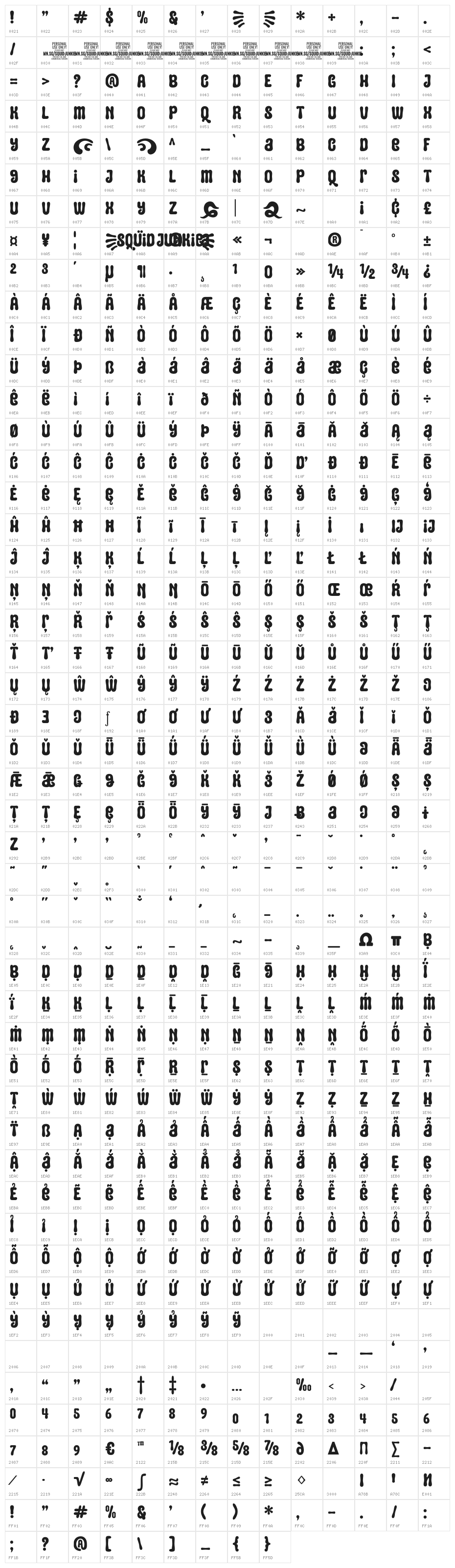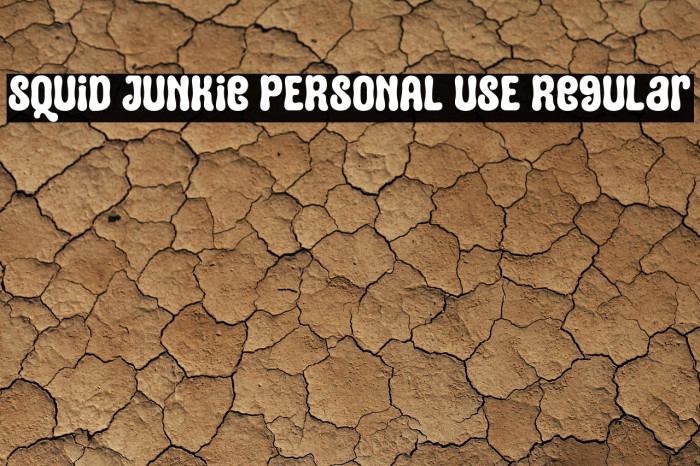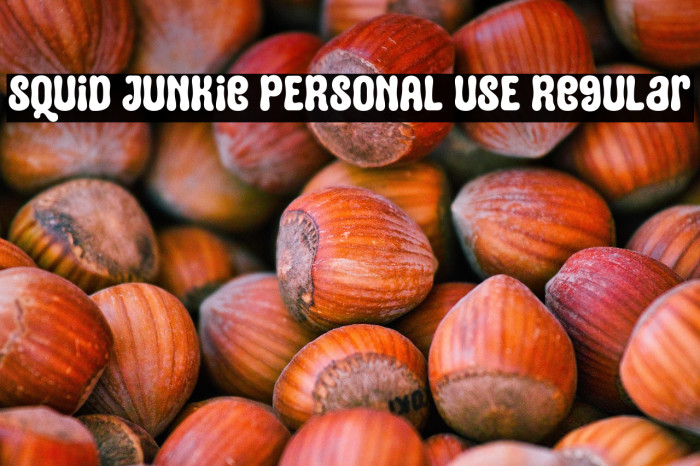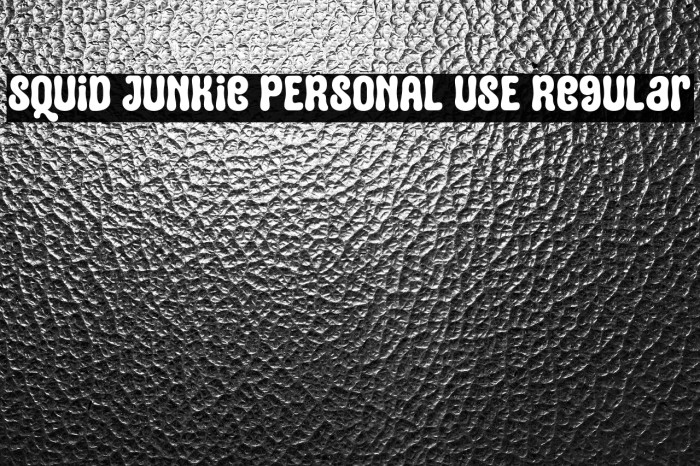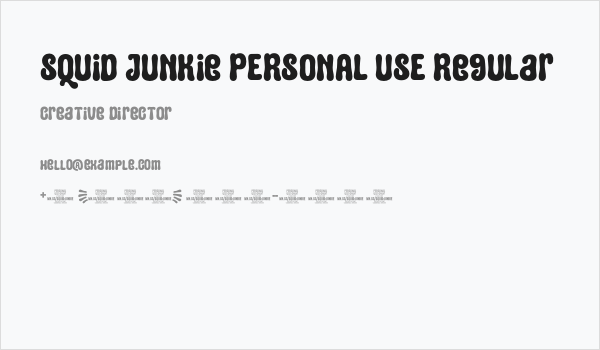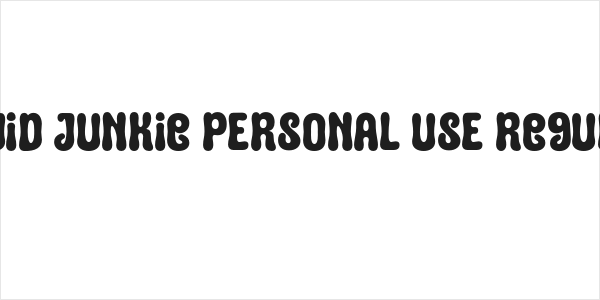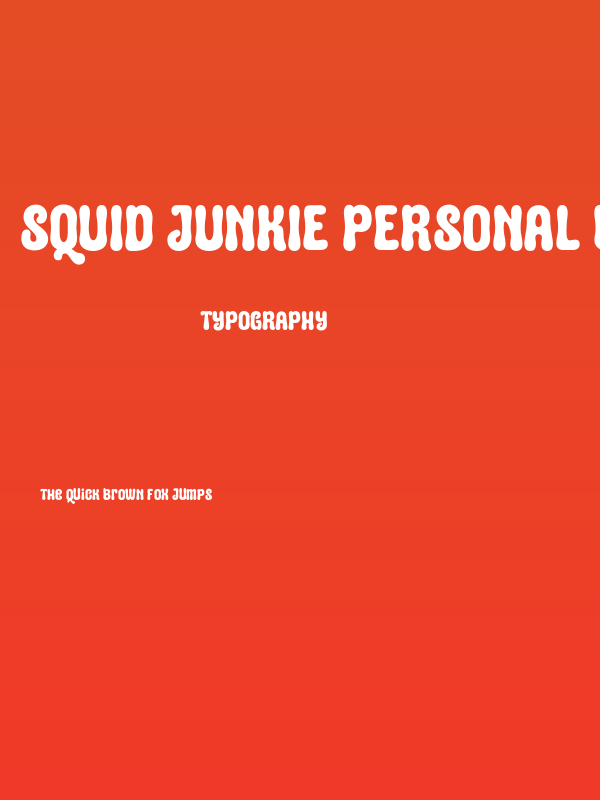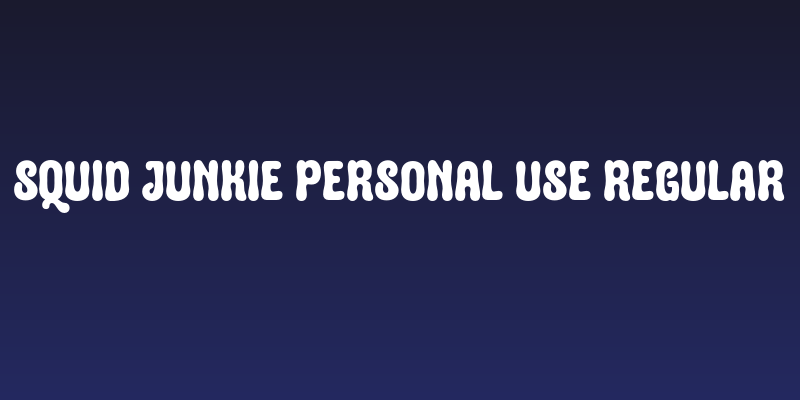
Squid Junkie PERSONAL USE Regular Font
Squid Junkie PERSONAL USE Regular Description
This font features a bold and playful design with thick, rounded strokes that give it a bubbly and whimsical appearance. The characters are uniform in width, creating a cohesive look across both uppercase and lowercase letters. The font has a slightly retro feel, reminiscent of 1970s design aesthetics, making it ideal for projects that require a fun and nostalgic touch. The numbers and special characters maintain the same playful style, ensuring consistency throughout any text. The overall design is eye-catching and suitable for creative and informal applications.
| Overall Style | Retro, Playful |
| Proposed Projects | Ideal for children's books, playful branding, retro-themed posters, and creative social media graphics. |